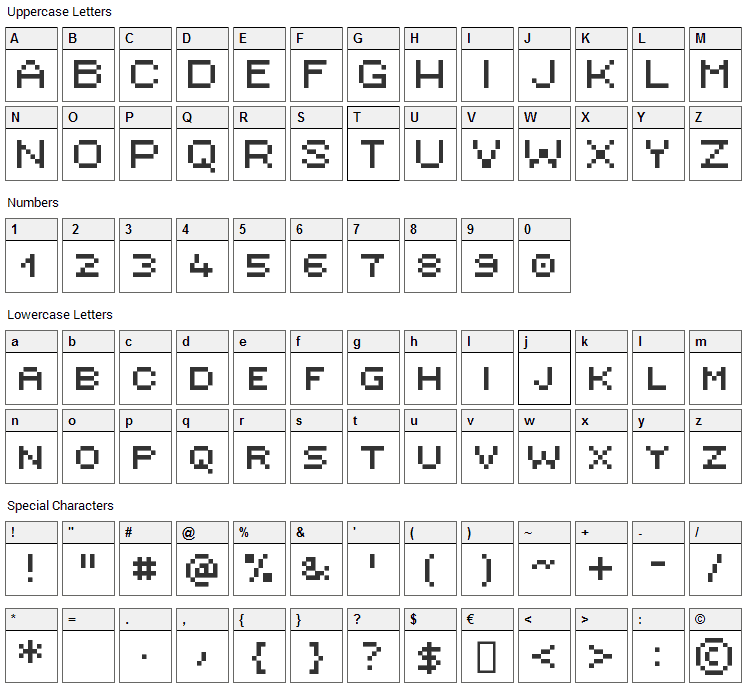
Ambitsek Font
Font Name:Ambitsek
Developer:Ambrus Weishappel
Category:Bitmap > Pixel
Ambitsek is a simple looking and very readable "small caps" style cross-platform bitmap font.
This font is optimized to 8px size with no anti-aliasing. It contains an almost complete character set (uppercase and "lowercase" letters, accented characters, punctuation, signs, symbols, arrows, elements etc.), includes Western, Central and Eastern European and also basic Greek chars. As I mentioned above, it's a "small caps" style font: it contains "lowercase" and uppercase chars too (i.e. caps and larger caps), but if you want, you can use only the uppercase or only the lowercase letters, as you like it.